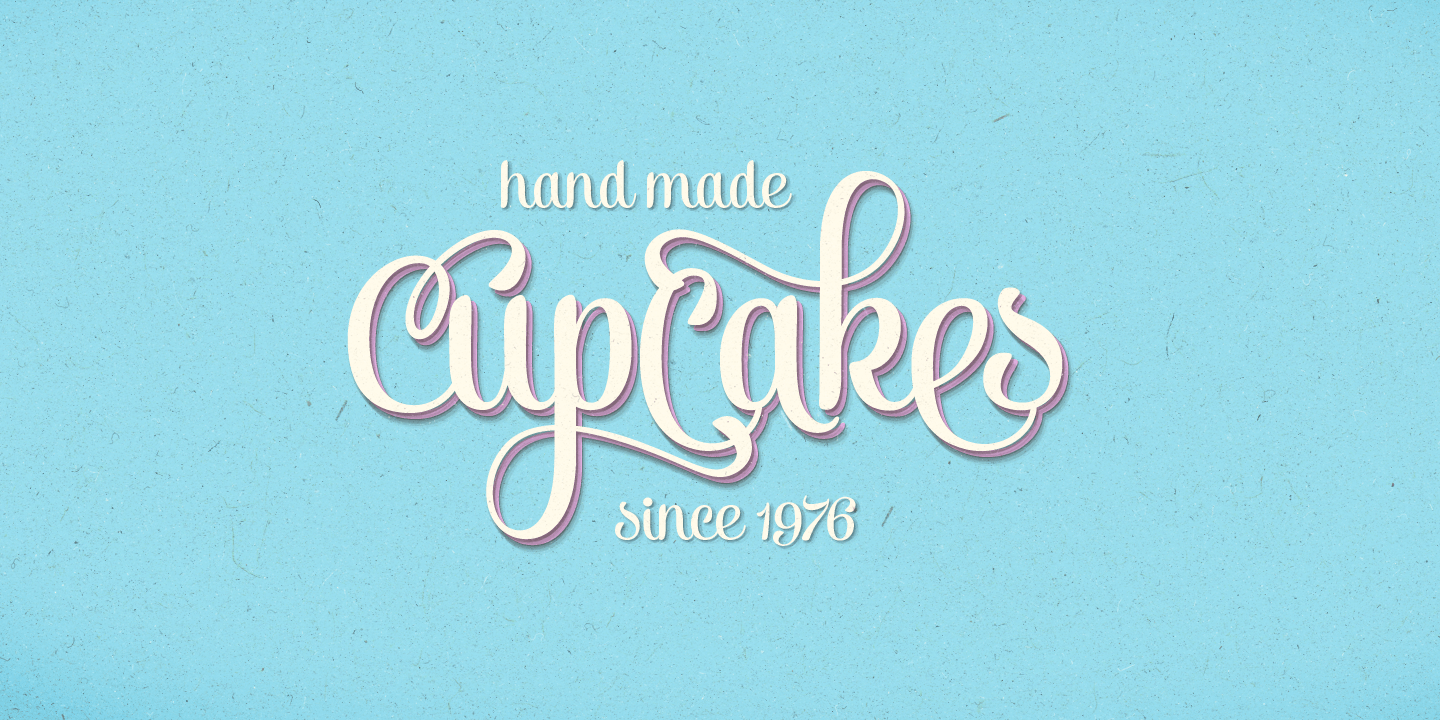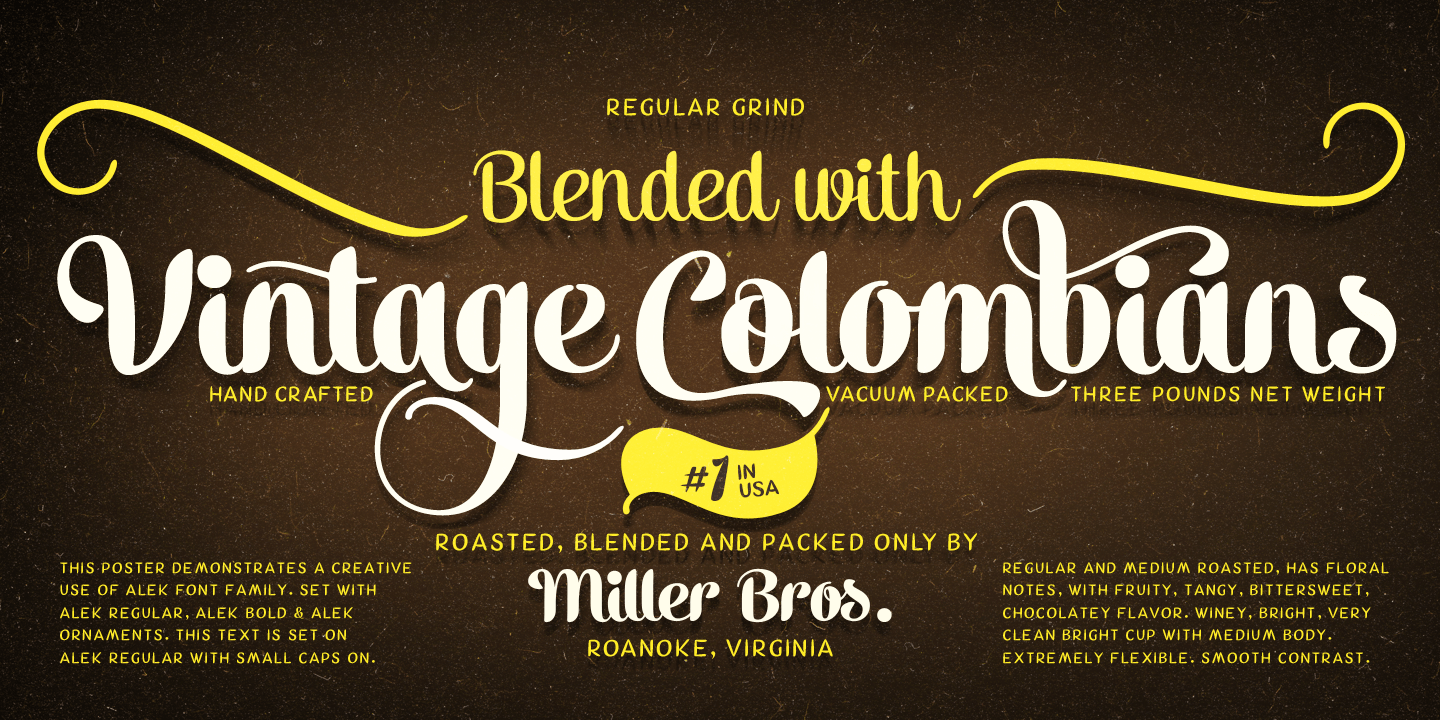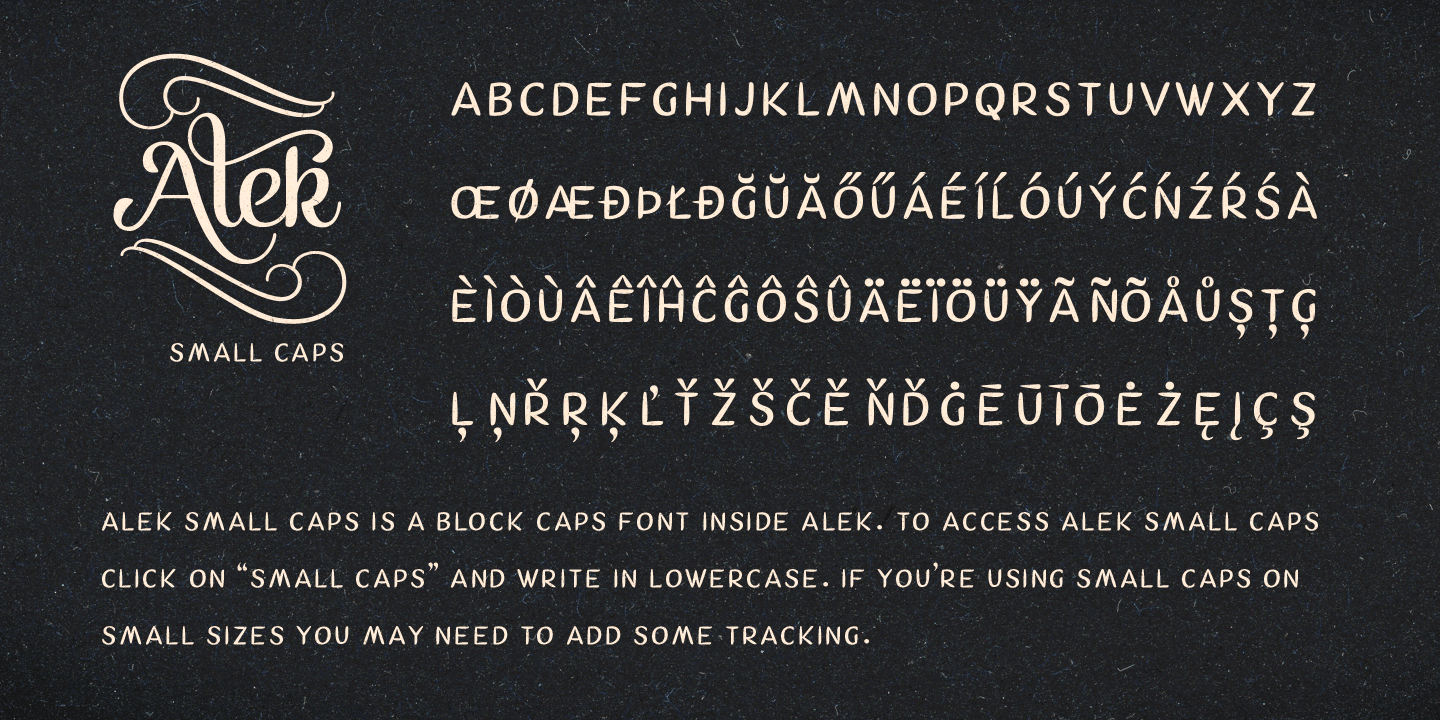
Alek is a classy and elegant yet playful upright script family of two weights and an ornament set. Alek is equipped with plenty of OpenType features: To activate the alternates click on Swash, Contextual, Stylistic or Titling Alternates or Discretionary…